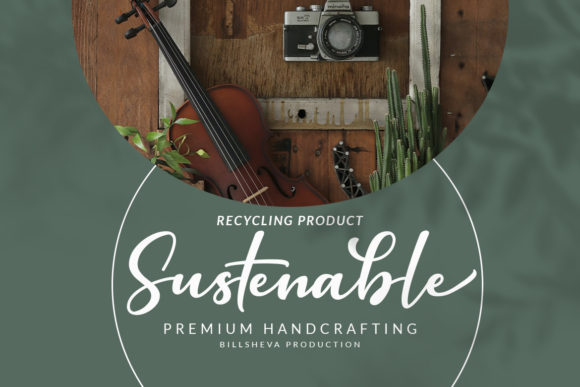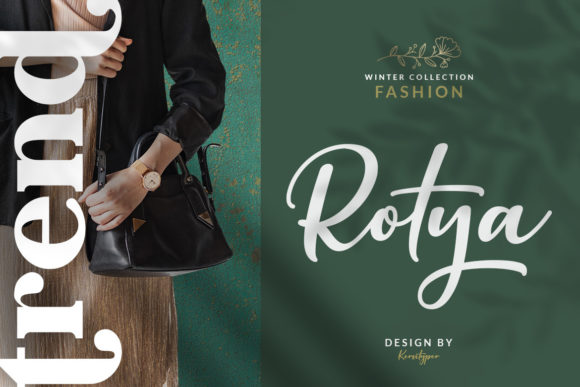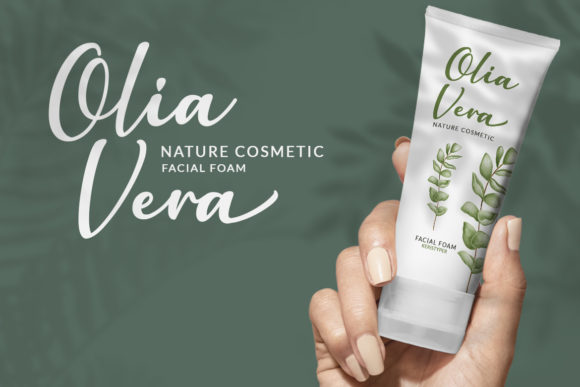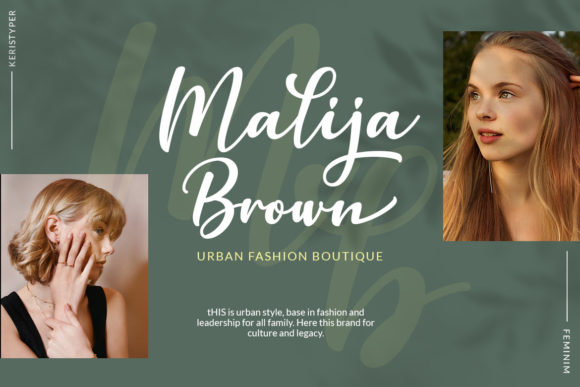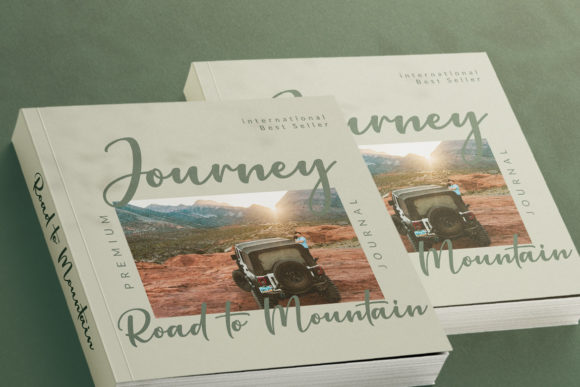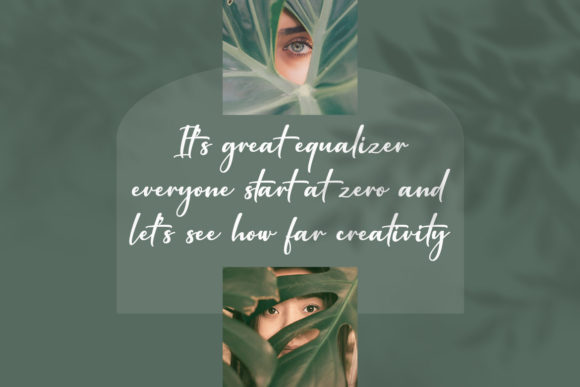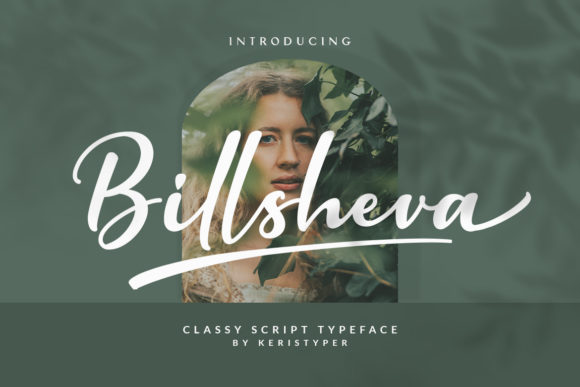
Billsheva Font: Elevate Your Brand with Modern Elegance
In the world of typography, a font can make or break the visual identity of a brand. For designers and crafters seeking to elevate their brand’s aesthetic, Billsheva font is an excellent choice. This modern handwritten script font boasts lovely touches that exude sophistication and style, making it perfect for fashion, e-commerce brands, trend blogs, wedding boutiques, and any business aiming to appear upscale and chic.
What Makes Billsheva Font Stand Out?
Billsheva font is a beautifully crafted handwritten script font that offers a unique blend of modernity and elegance. Its distinctive characteristics include:
• Modern Handwritten Script: Billsheva font features a modern handwritten script style that is both stylish and legible.
• Lovely Touches: The font includes intricate details and flourishes that add a touch of sophistication to any design.
• PUA Encoded: Billsheva font is PUA (Private Use Area) encoded, allowing easy access to all glyphs and swashes. This feature makes it simple to use and customize the font to suit your design needs.
Ideal Applications for Billsheva Font
Billsheva font is versatile and can be used in various design projects, including:
• Fashion Brands: Add a touch of elegance to your fashion brand’s logo, packaging, or marketing materials.
• E-commerce Brands: Enhance your online store’s visual identity with a sophisticated and modern font.
• Trend Blogs: Elevate your blog’s aesthetic with a stylish font that reflects your brand’s personality.
• Wedding Boutiques: Create beautiful and elegant wedding stationery, invitations, and decorations with Billsheva font.
• Any Upscale Business: If your business aims to appear luxurious and high-end, Billsheva font is an excellent choice.
Benefits of Using Billsheva Font
By choosing Billsheva font for your design projects, you can enjoy several benefits, including:
• Unique Visual Identity: Billsheva font helps you create a distinctive visual identity that sets your brand apart from competitors.
• Elegant Aesthetic: The font’s modern handwritten script style and lovely touches add an air of sophistication to your designs.
• Easy Customization: With PUA encoding, you can easily access and customize glyphs and swashes to suit your design needs.
• Time-Saving: Billsheva font is designed to be versatile and can be used in various design projects, saving you time and effort.
Tips for Using Billsheva Font Effectively
To get the most out of Billsheva font, consider the following tips:
• Pair with Complementary Fonts: Combine Billsheva font with complementary fonts to create a harmonious and visually appealing design.
• Use in Headings and Titles: Billsheva font is perfect for headings and titles, adding a touch of elegance to your designs.
• Experiment with Swashes and Glyphs: Take advantage of the font’s PUA encoding and experiment with different swashes and glyphs to add unique touches to your designs.
Billsheva font is an excellent choice for designers and crafters seeking to elevate their brand’s visual identity. With its modern handwritten script style, lovely touches, and PUA encoding, this font is perfect for fashion, e-commerce brands, trend blogs, wedding boutiques, and any business aiming to appear upscale and chic. By incorporating Billsheva font into your design projects, you can create a unique and elegant aesthetic that sets your brand apart from competitors.